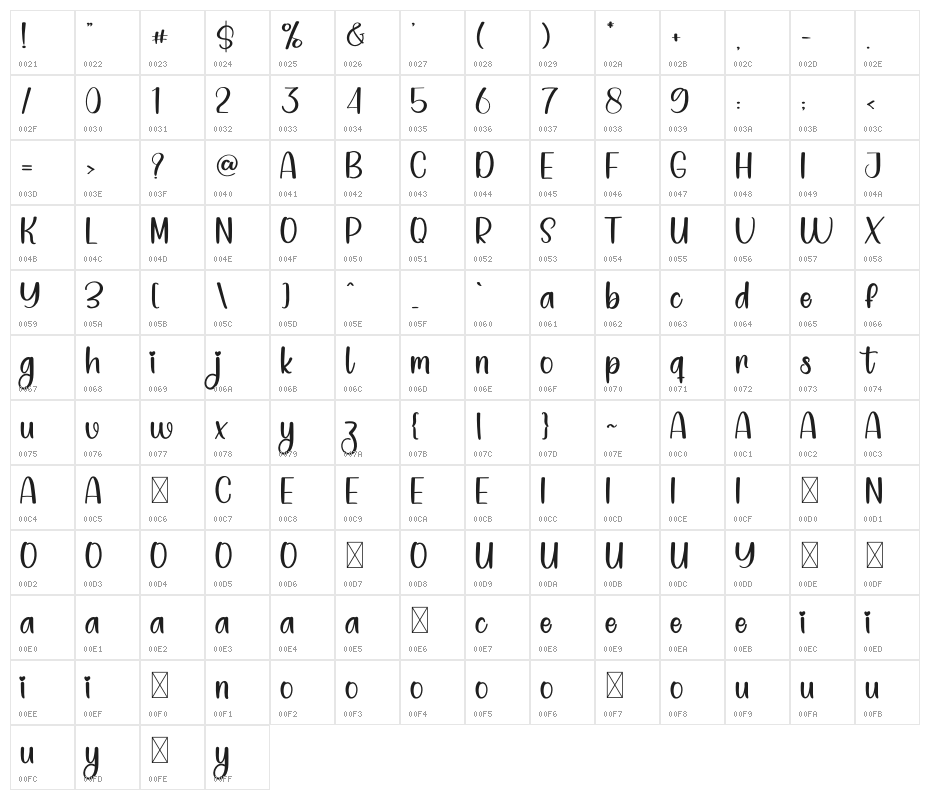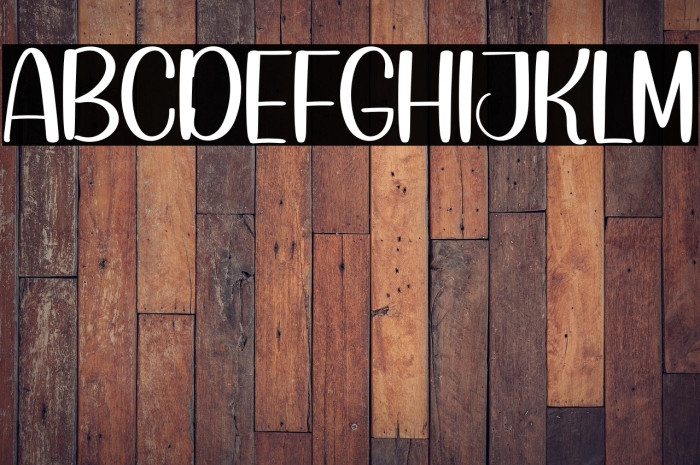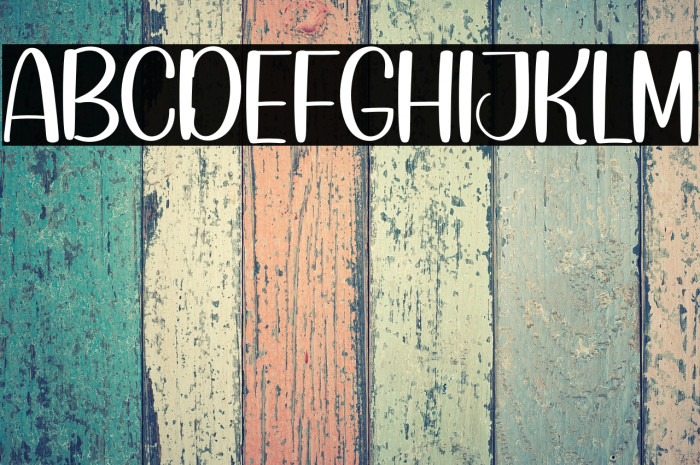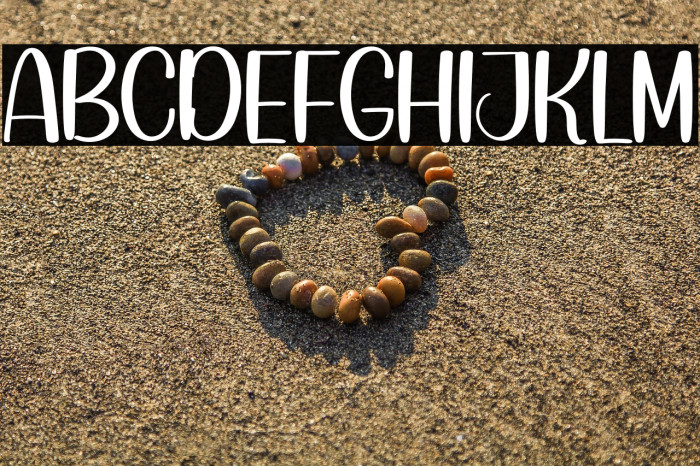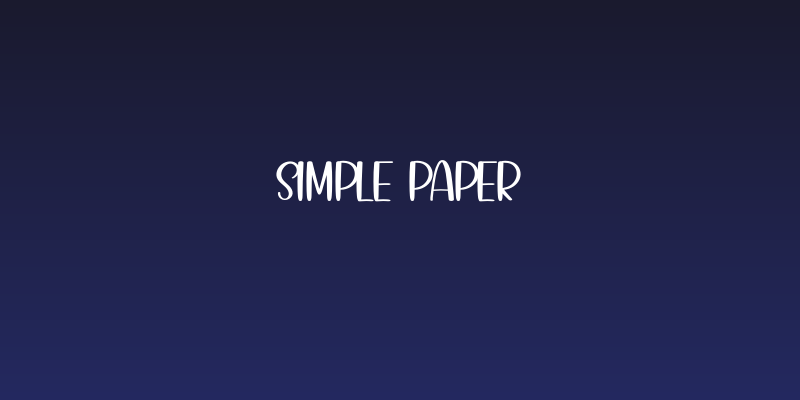
Simple Paper Font
Simple Paper Description
A playful and bold handwritten font with a casual and friendly appearance.
| Overall Style | Casual and friendly |
| Use Case | Logos, headlines, invitations |
| Proposed Projects | Greeting cards, invitations, playful branding. |